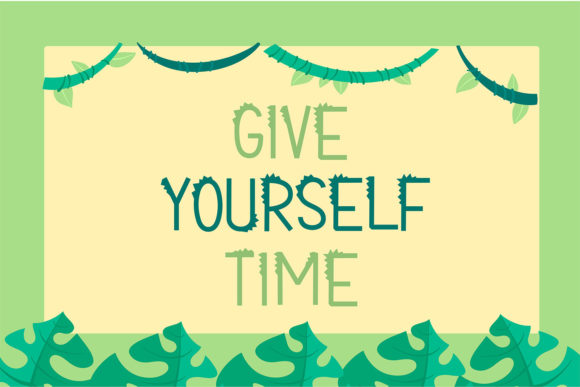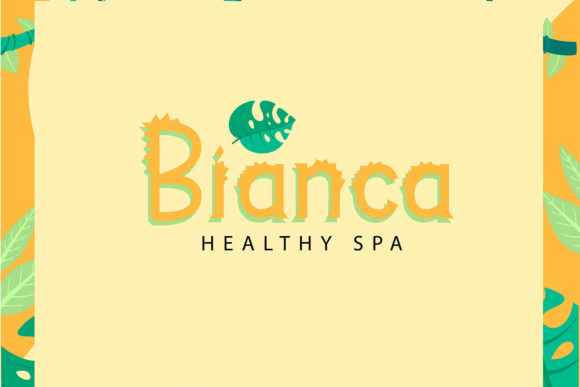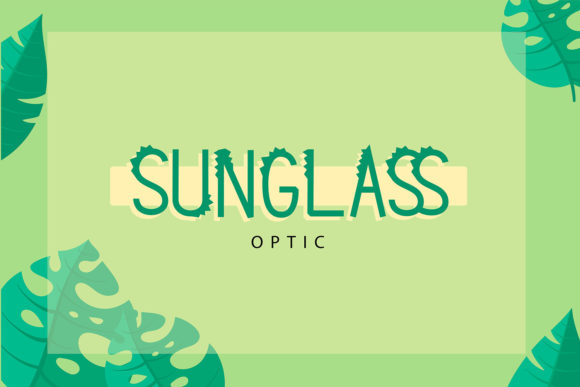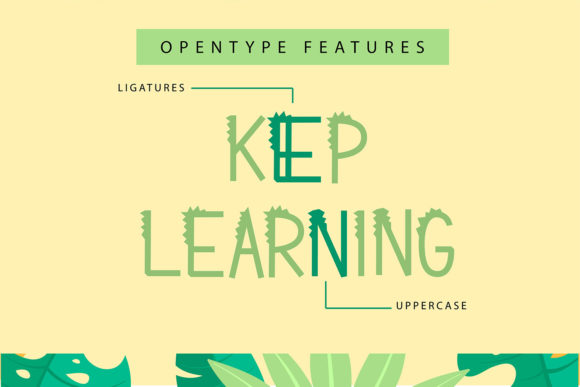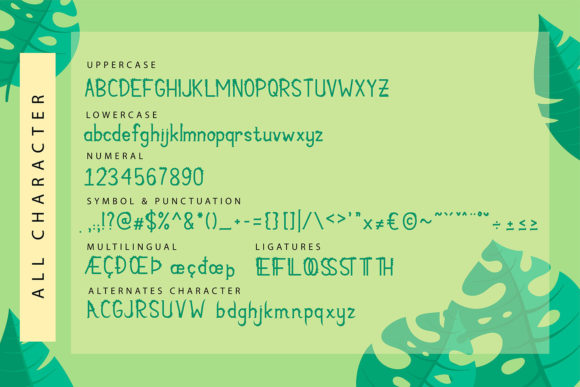
The Ultimate Guide to Dynoku Font: Adding Playfulness to Your Designs
I’ll never forget the time I was working on a children’s book cover design, and I just couldn’t find the right font to capture the playful spirit of the story. The client wanted something fun, inviting, and youthful, but everything I tried seemed either too boring or too over-the-top. That’s when I stumbled upon Dynoku Font, and it was love at first sight! 💕 In this article, I’ll share my experience with Dynoku, its features, and how to make the most of it in your designs.
What is Dynoku Font?
Dynoku is a playful and fun decorative font, specially created for projects that need inviting typography! It’s perfect for games, toys, storybook covers, children’s apparel designs, stationery items, or more. With its unique and quirky style, Dynoku is sure to add a touch of personality to any design.
My Honest Review of Dynoku Font
Here’s what I love about Dynoku:
- ✨ Playful and fun: Dynoku is the perfect font for designs that need a dash of playfulness and whimsy.
- ✅ Easy to read: Despite its decorative nature, Dynoku is surprisingly easy to read, even in smaller sizes.
- 🎉 Versatile: Dynoku works well in a variety of design contexts, from digital to print.
And here are some small quirks or limitations to keep in mind:
- 🤔 Limited use cases: While Dynoku is amazing for playful designs, it might not be the best fit for more formal or professional projects.
- ⚠️ Overuse can be overwhelming: As with any decorative font, it’s easy to overuse Dynoku. Use it sparingly to make the most impact.
The Story Behind Dynoku Font
Dynoku was designed by a team of creatives who wanted to create a font that would bring a smile to people’s faces. Inspired by the world of children’s books and games, Dynoku is the result of a passion project that aimed to create a playful and fun font that’s perfect for designs that need a bit of personality.
| Font Name | Dynoku Font |
| Author | Vunira |
| What is Dynoku Font best used for? | Dynoku Font is best used for designs that need a playful and fun touch, such as children’s book covers, games, toys, and stationery items. |
| Is Dynoku Font easy to read? | Yes, despite its decorative nature, Dynoku Font is surprisingly easy to read, even in smaller sizes. |